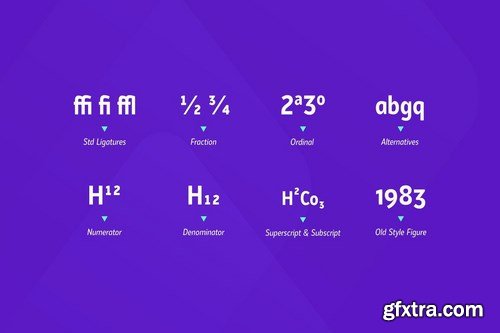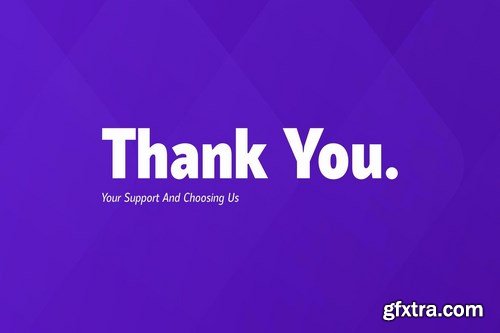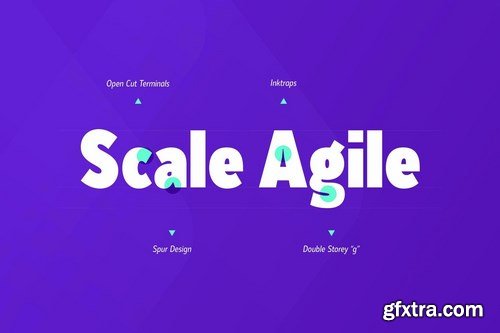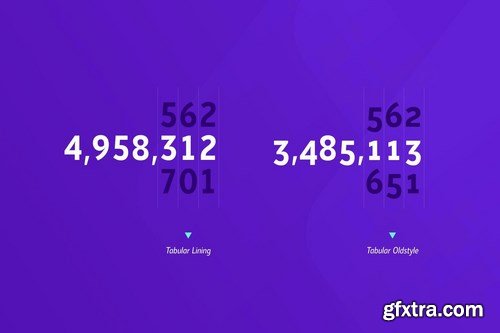
Kolage was created from a sans humanist design with a modern twist. characterized by the large x-height, ink trap and open apertures as the hallmarks of the Kolage a letterform. Kolage was inspired by the strong character of the letter without leaving the aesthetic of the letterforms.
Each family member of Kolage also equipped with useful OpenType features such as Ordinals, Superscripts, Subscripts, Stylistic Alternates, Stylistic Sets, Old style Figure, Proportional Lining, Standard Ligatures, Fractions, also Numerators & Denominators. Each font has 530+ glyphs which covers Western & Eastern Europe, and other Latin based languages over 200 languages supported
Comes with 9 weights from Thin to Black with each matching Italic. Contain several OpenType features: Stylistic Alternates, Figures Variation (fraction, tabular lining, numerator, denominator), and also covered broad latin languages. Provided also variable fonts in two styles; Upright and Italic.